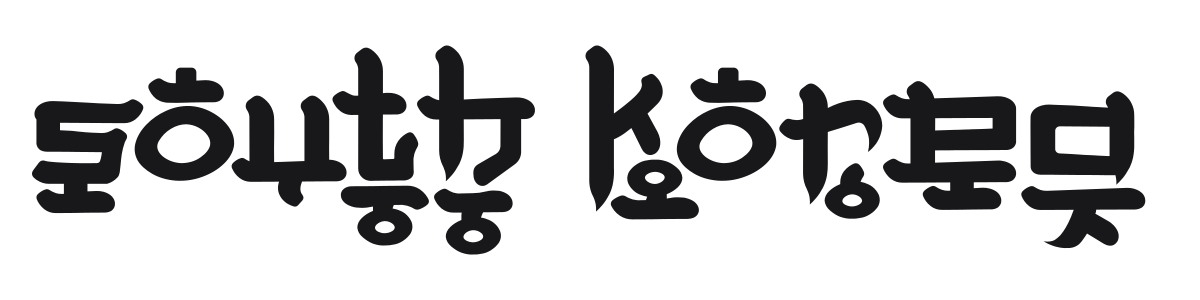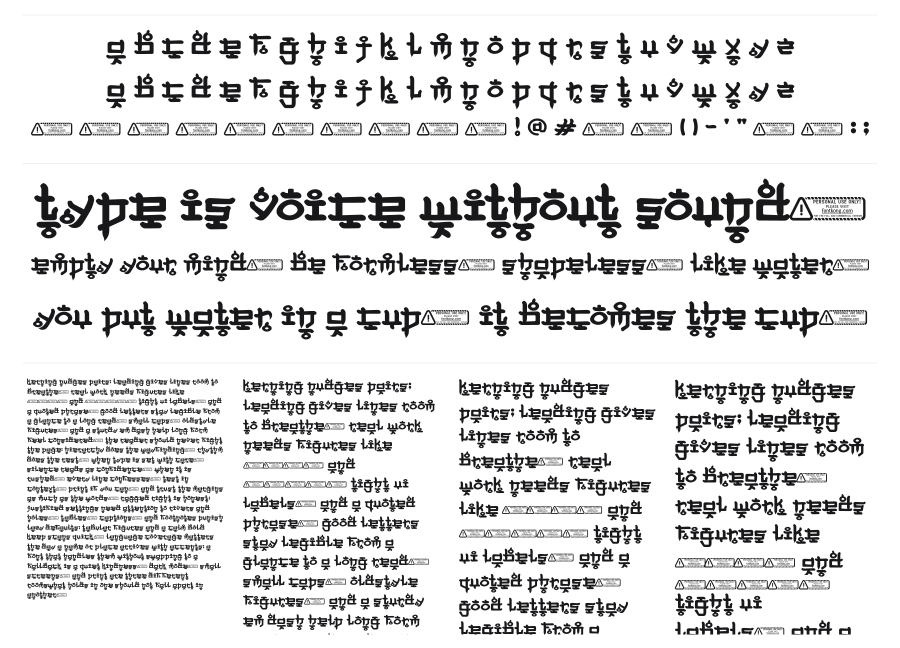
South Korea
South Korea is a novelty display font that reimagines Latin characters through the visual grammar of Korean Hangul script. Each letter borrows the enclosed compartments, angular joints, and circular dot accents characteristic of syllable-block writing, creating a genuinely distinctive hybrid that reads as Latin but feels distinctly Korean. The heavy, monoweight strokes and bold presence make it most effective at large sizes for headlines, packaging, or themed branding.